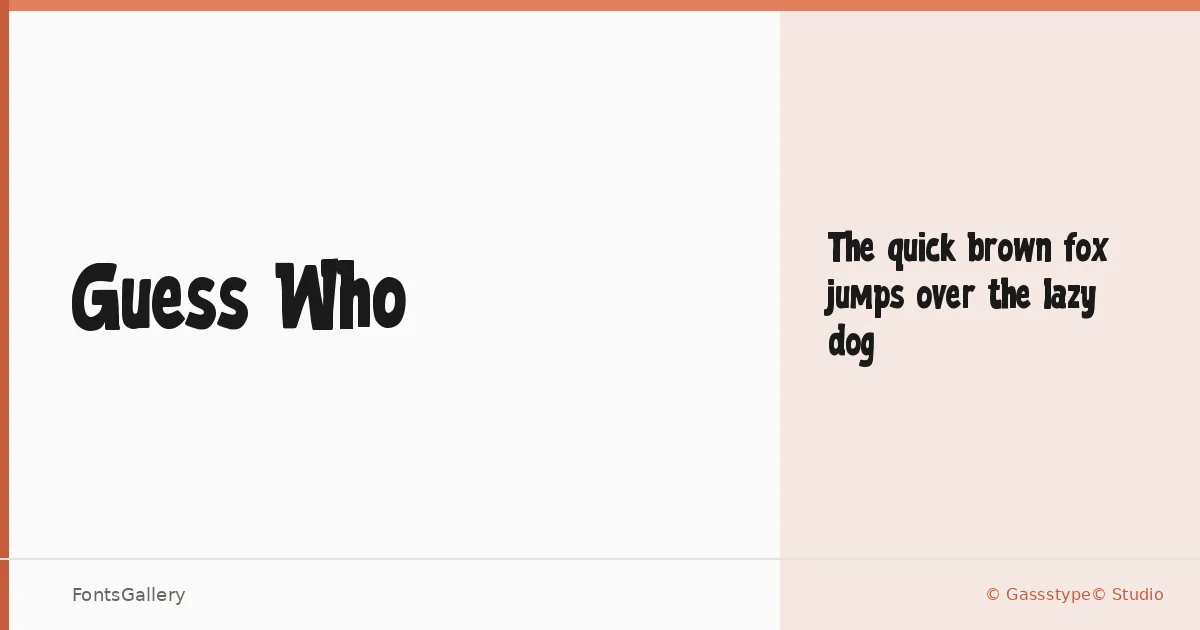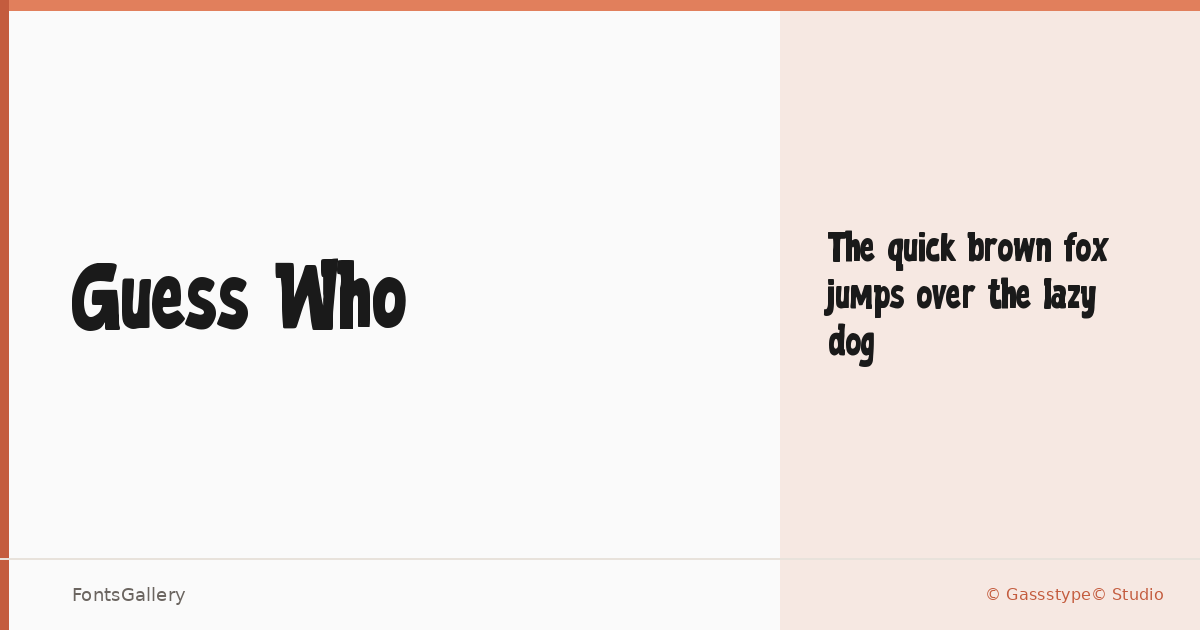
About Guess Who Font
There is a looseness to these letterforms — a hand-drawn energy that feels deliberate rather than casual. Anang F and Malik Wsn of Gassstype© Studio built this display face in 2022 with a single weight, Regular, delivered in both TTF and OTF formats. The result is a Latin-script typeface that leans fully into personality rather than precision.
This is a display face in the boldest, most playful sense of that category — whimsical enough for a children's book spread, punchy enough to anchor a poster headline or carry a logo mark. The single Regular cut concentrates all of that energy into one expressive register, with letterforms that hold their own at large sizes without needing a supporting weight range. It suits a T-shirt graphic just as readily as it does a branding treatment where the tone needs to feel approachable and a little irreverent.
The natural home for this face is anywhere the copy is short and the tone is warm or playful — think children's book covers, event posters, logo wordmarks, and apparel graphics. Its Latin coverage keeps it well-suited to those markets. For pairing, it works alongside clean and structured faces like Helvetica, Alexandria, and Audex, or alongside expressive companions such as Aresink and Bizantheum, depending on whether you want contrast or layered character.